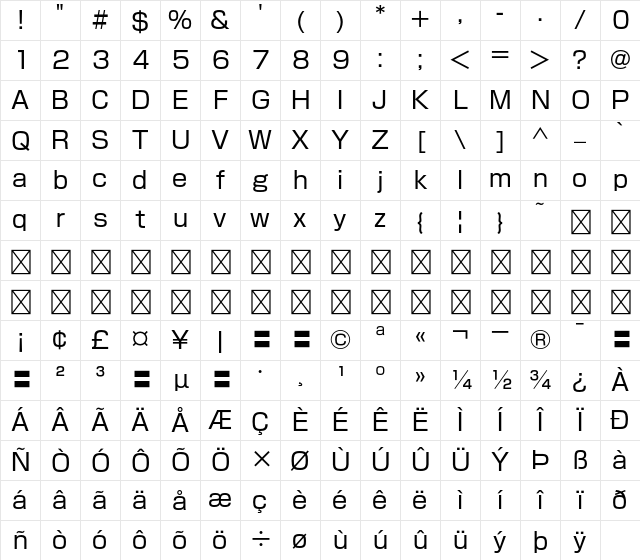
G-OTF KShin Go Std R
Style: R
Complete G-OTF KShin Go Std R glyph index. Displaying only characters natively supported by G-OTF KShin Go Std R font.
Design Context for G-OTF KShin Go Std
G-OTF KShin Go Std is a composed and adaptable typeface that performs quietly and consistently across a wide range of design contexts.